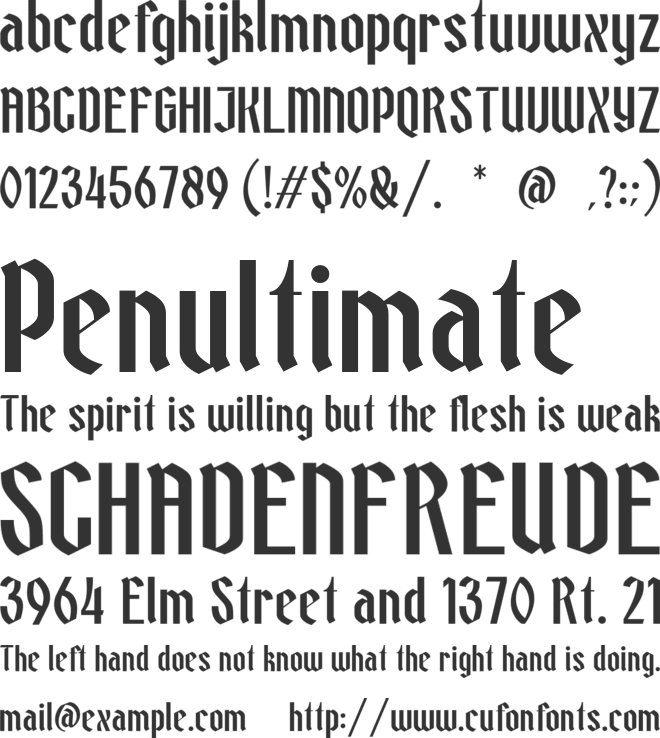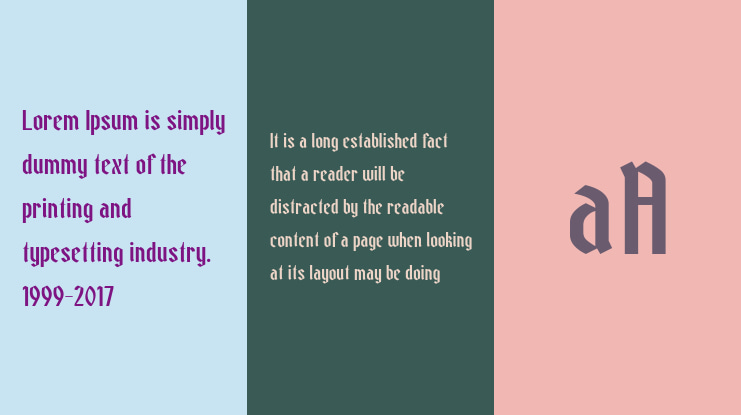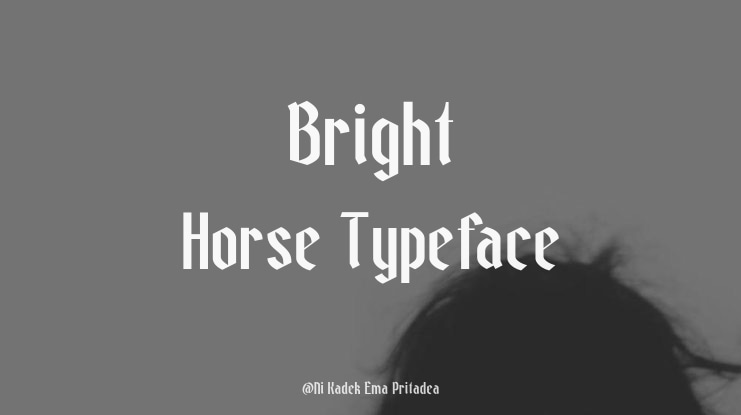
Bright Horse Font
Bright Horse – A Modern Blackletter Typeface with Bold Spirit
Bright Horse is a striking typeface that masterfully fuses the timeless elegance of traditional blackletter with the commanding presence of bold sans-serif influences. Designed by Alit Design Studio, this font reimagines medieval aesthetics through a modern lens, offering a unique blend of historical charm and contemporary edge.